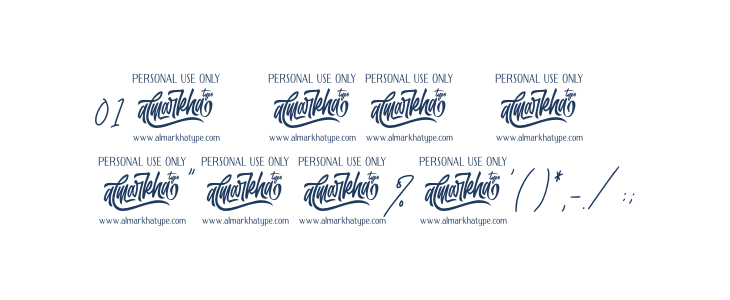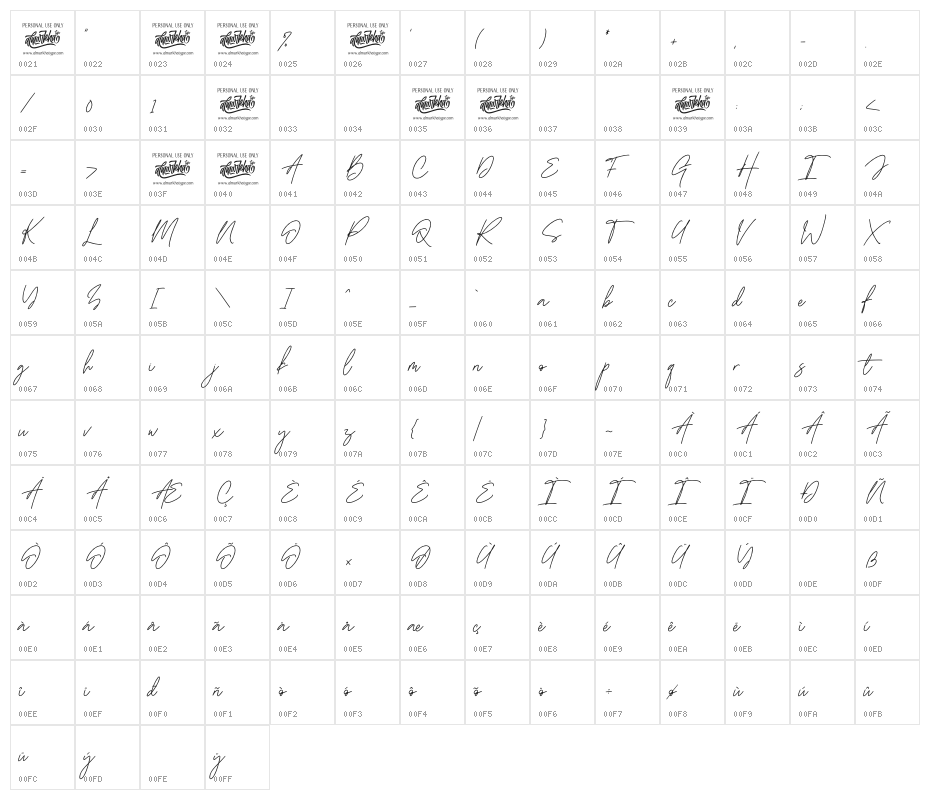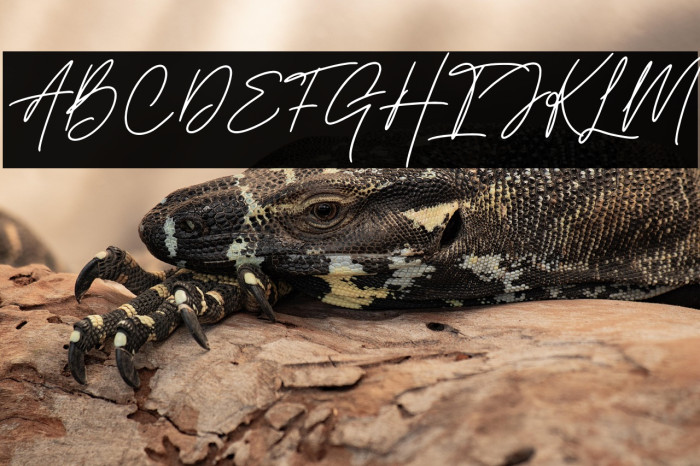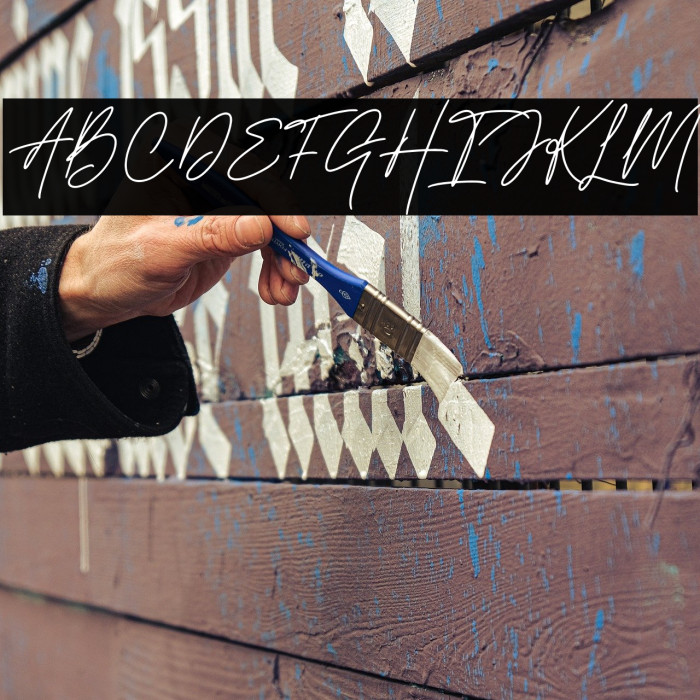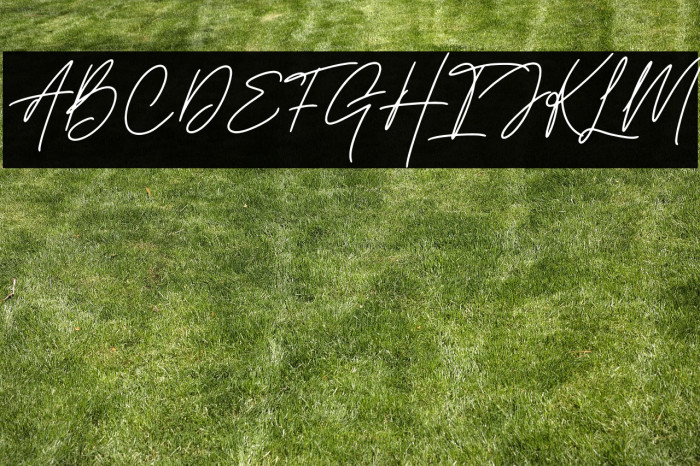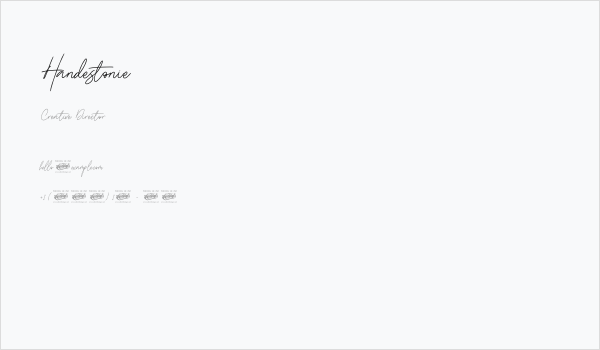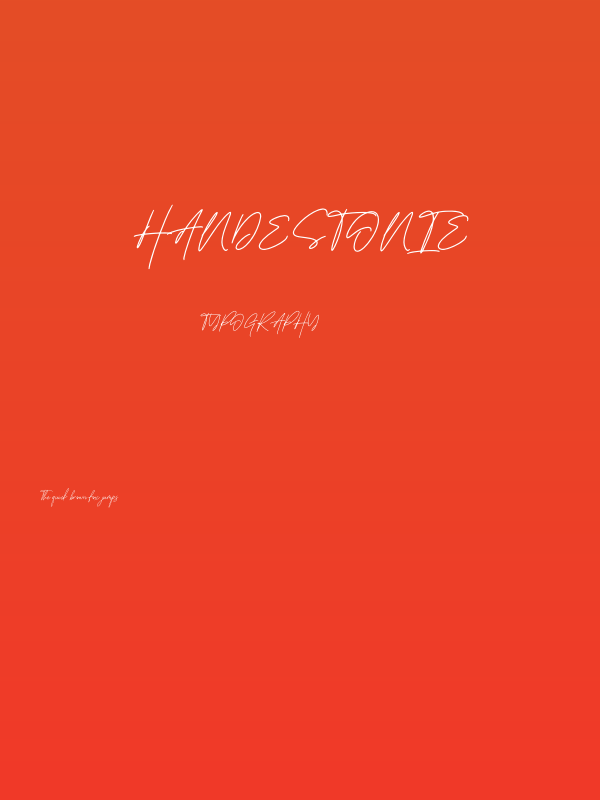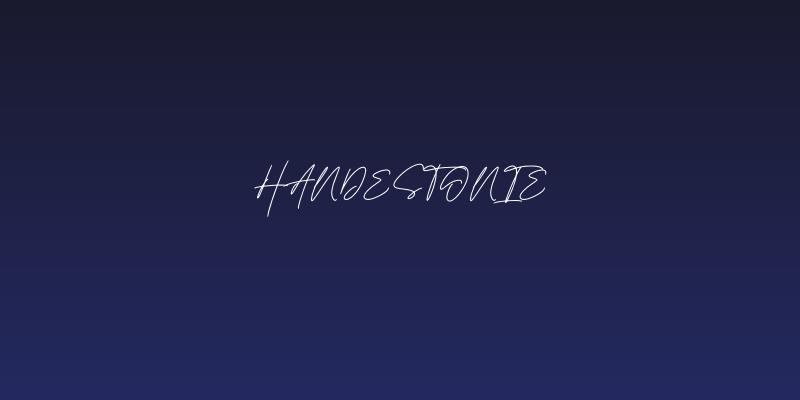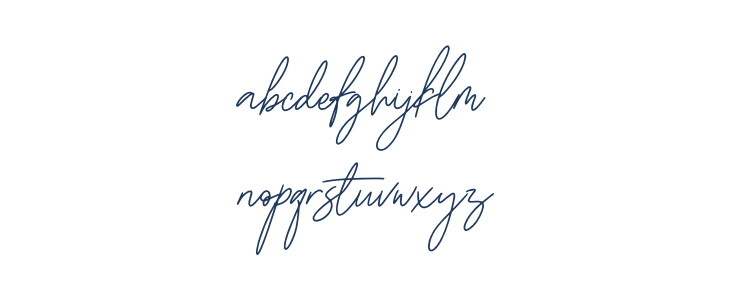
Handestonie Font
Handestonie Description
This font exhibits a flowing, cursive style with a handwritten appearance. The uppercase letters are tall and elegant, with a slight slant that adds a dynamic feel. The lowercase letters maintain a consistent flow, enhancing the script-like quality. The strokes are thin and delicate, giving the font a light and airy presence. The numerals and special characters are crafted with the same attention to detail, ensuring a cohesive look across all elements. This font is ideal for projects that require a personal touch, such as invitations, greeting cards, or branding materials.
| Overall Style | Elegant, Handwritten |
| Proposed Projects | Ideal for wedding invitations, personal branding, greeting cards, and elegant stationery. |